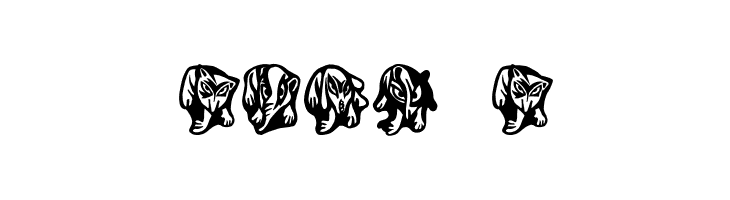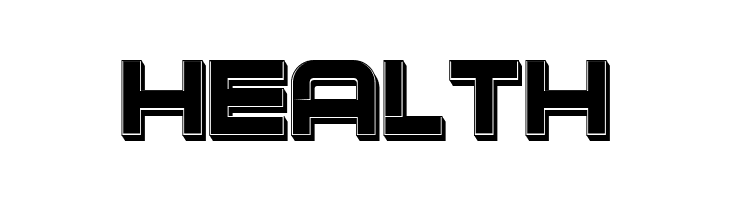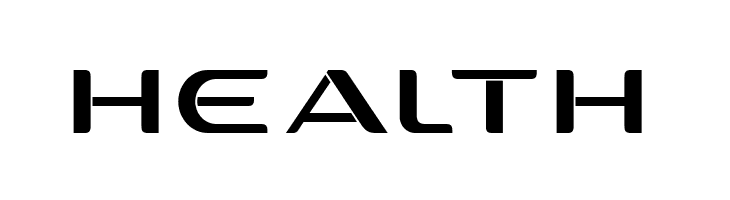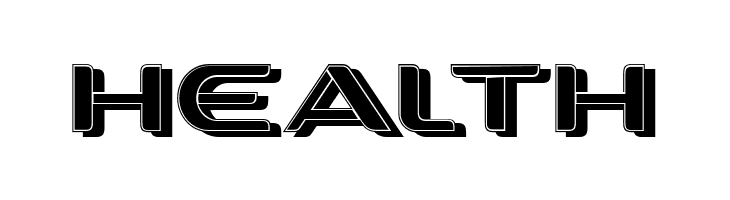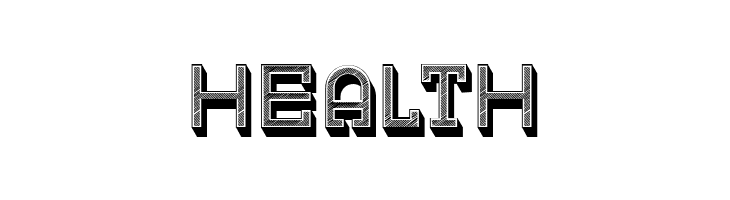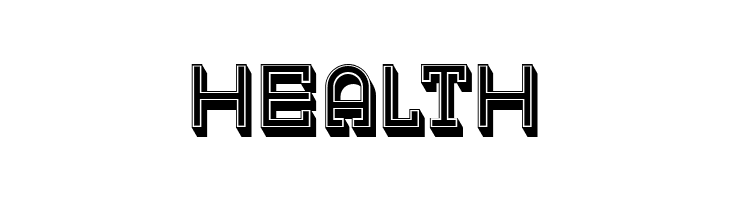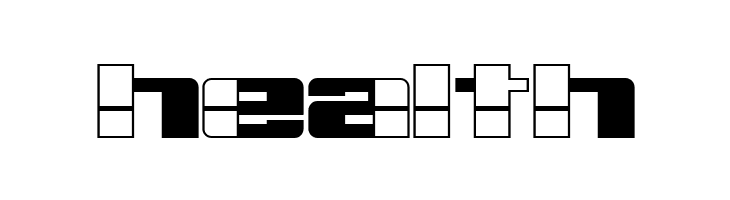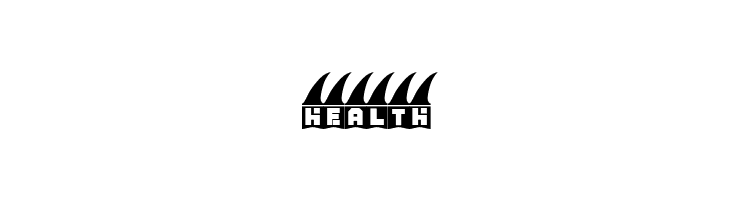
A highly decorative and artistic font with intricate, swirling patterns.
A bold, geometric font with a modern, industrial design.
A bold, spiky font with a tribal and fantasy-inspired design.
A bold, futuristic font with a geometric, three-dimensional style.
A modern, geometric font with a futuristic and sleek design.
A bold, futuristic font with geometric shapes and a three-dimensional effect.
A bold, geometric font with modern and artistic elements.
A bold, hollow font with a three-dimensional effect and vintage-modern style.
A bold, geometric font with a 3D effect, ideal for impactful designs.
A bold, three-dimensional font with geometric shapes and a modern feel.